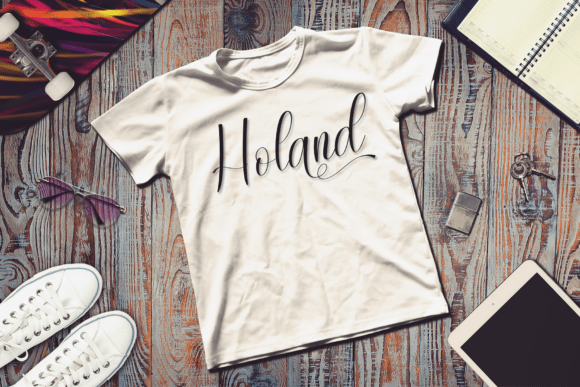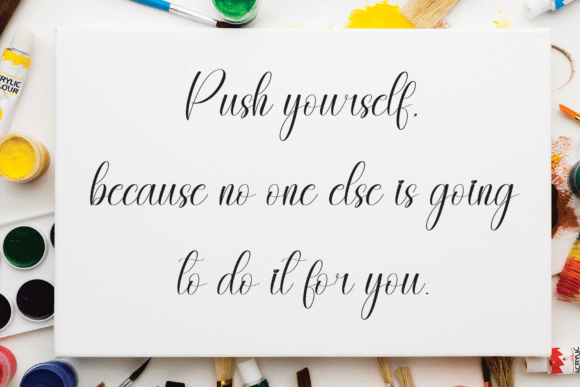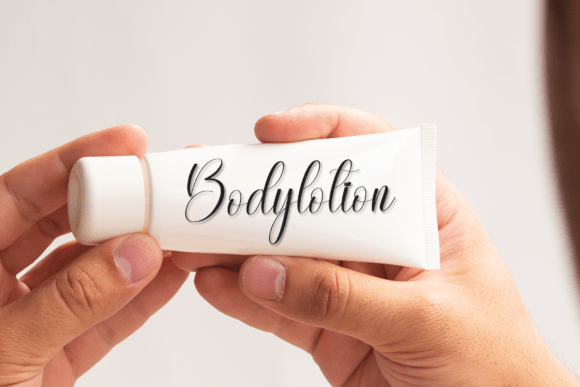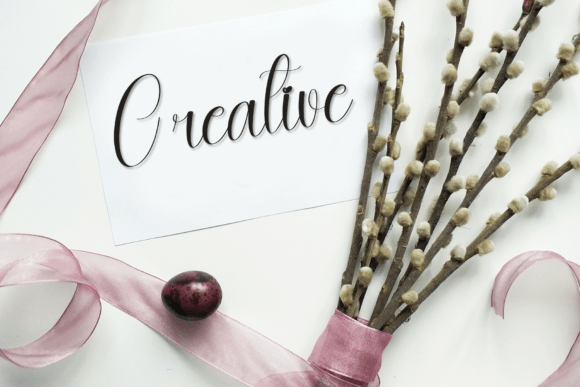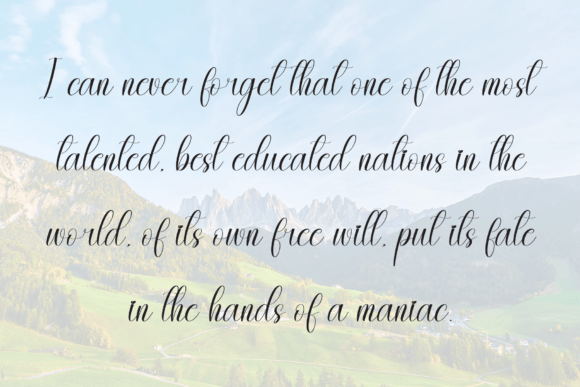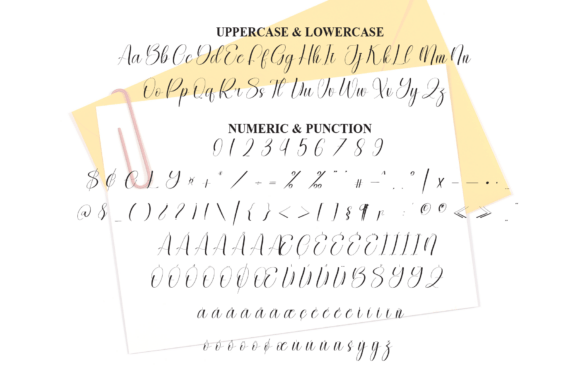
Introducing Envelope Font: Your New Go-To Charming Typeface
Are you tired of using the same old fonts in your designs? Look no further! We’re excited to introduce you to Envelope Font, a delightfully playful handwritten font that’s sure to capture your heart. With its sweet and friendly vibe, this charming typeface is perfect for a range of design needs where fun meets sophistication.
The Charm of Envelope Font
Envelope Font is a unique and adorable typeface that’s designed to bring a touch of whimsy to your designs. Its delightful charm and aesthetic make it perfect for crafting dreamy wedding invitations, designing whimsical cards, and creating other fun and playful designs. Whether you’re a designer, crafter, or DIY enthusiast, this font is sure to inspire joy and add a dash of magic to your projects.
What Makes Envelope Font Special?
So, what sets Envelope Font apart from other fonts out there? Here are just a few things that make it special:
- Playful yet sophisticated: Envelope Font strikes the perfect balance between playfulness and sophistication, making it suitable for a wide range of design needs.
- Handwritten with love: This font is carefully crafted with a handwritten touch, giving it a personal and unique feel.
- Adorable aesthetic: The font’s adorable aesthetic is sure to capture your heart and add a touch of whimsy to your designs.
- Versatile: Envelope Font can be used for a variety of design needs, from wedding invitations to social media graphics.
Using Envelope Font in Your Designs
- Wedding invitations: Create dreamy and romantic wedding invitations that set the tone for a special day.
- Whimsical cards: Design playful and fun cards for birthdays, holidays, and other special occasions.
- Social media graphics: Add a touch of personality to your social media graphics with Envelope Font.
- Branding and packaging: Use Envelope Font to create unique and eye-catching branding and packaging designs.
Envelope Font is a charming and playful typeface that’s sure to capture your heart. With its delightful charm and adorable aesthetic, it’s perfect for a range of design needs where fun meets sophistication. Whether you’re a designer, crafter, or DIY enthusiast, this font is sure to inspire joy and add a dash of magic to your projects. So why wait? Get ready to communicate your creative vision with Envelope Font!